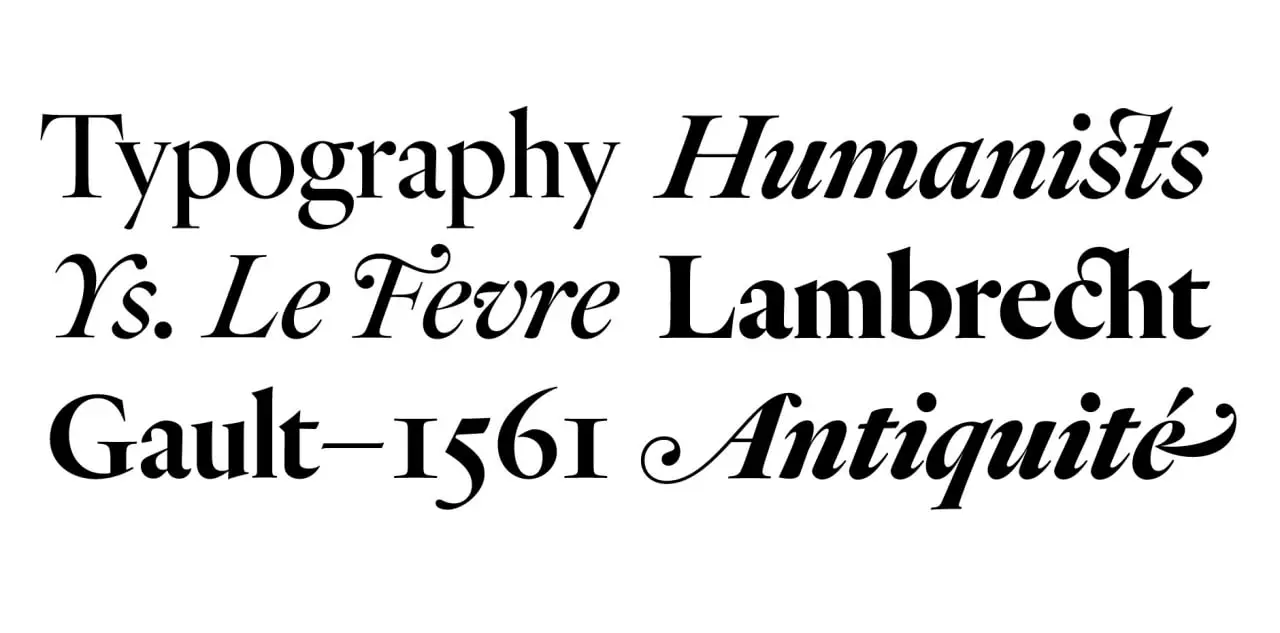
The Klim Heldane Text & Display Font Families offer a versatile range of typefaces designed for both text and display applications. These fonts are crafted to deliver clarity and aesthetic appeal across various mediums.
- Multiple weights for flexibility in design
- Distinct styles suitable for both headings and body text
- High legibility at various sizes
- Styles: Regular, Bold, Italic, and more
- Ideal for branding, logos, and marketing materials
- Perfect for web and print applications
- Use different weights to create visual hierarchy in your designs